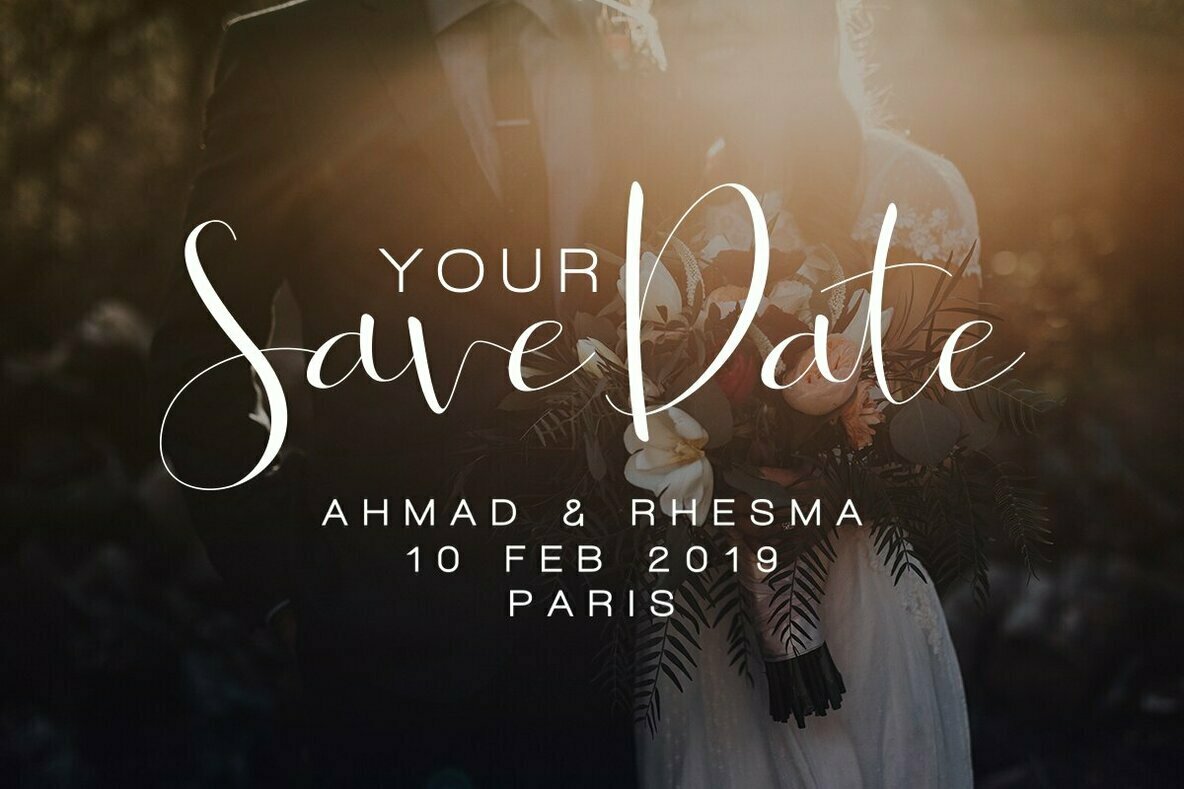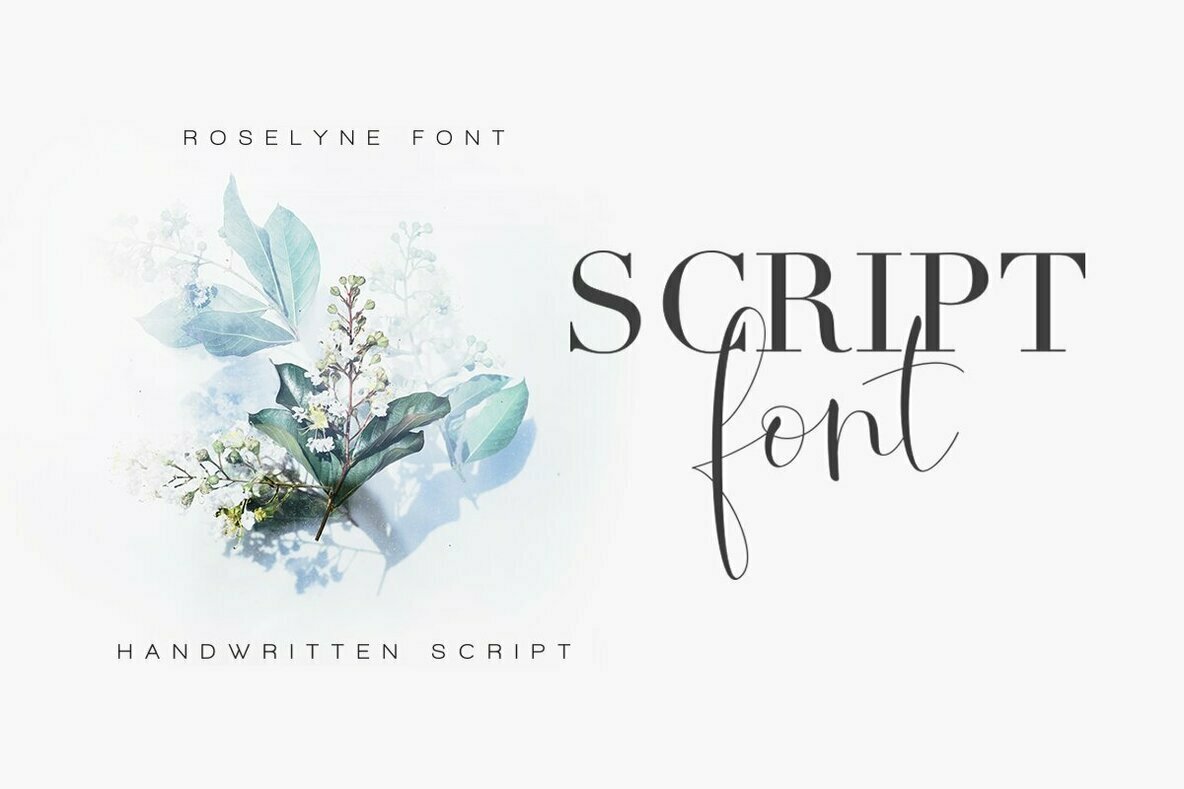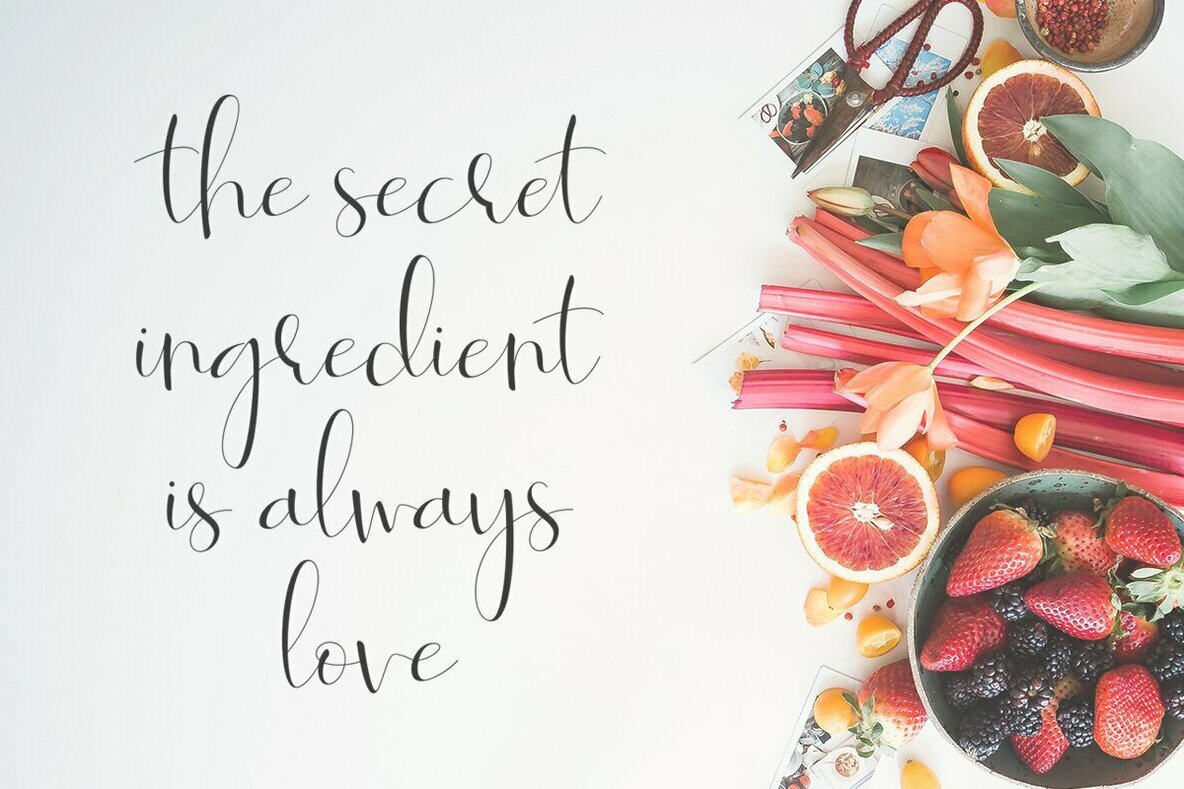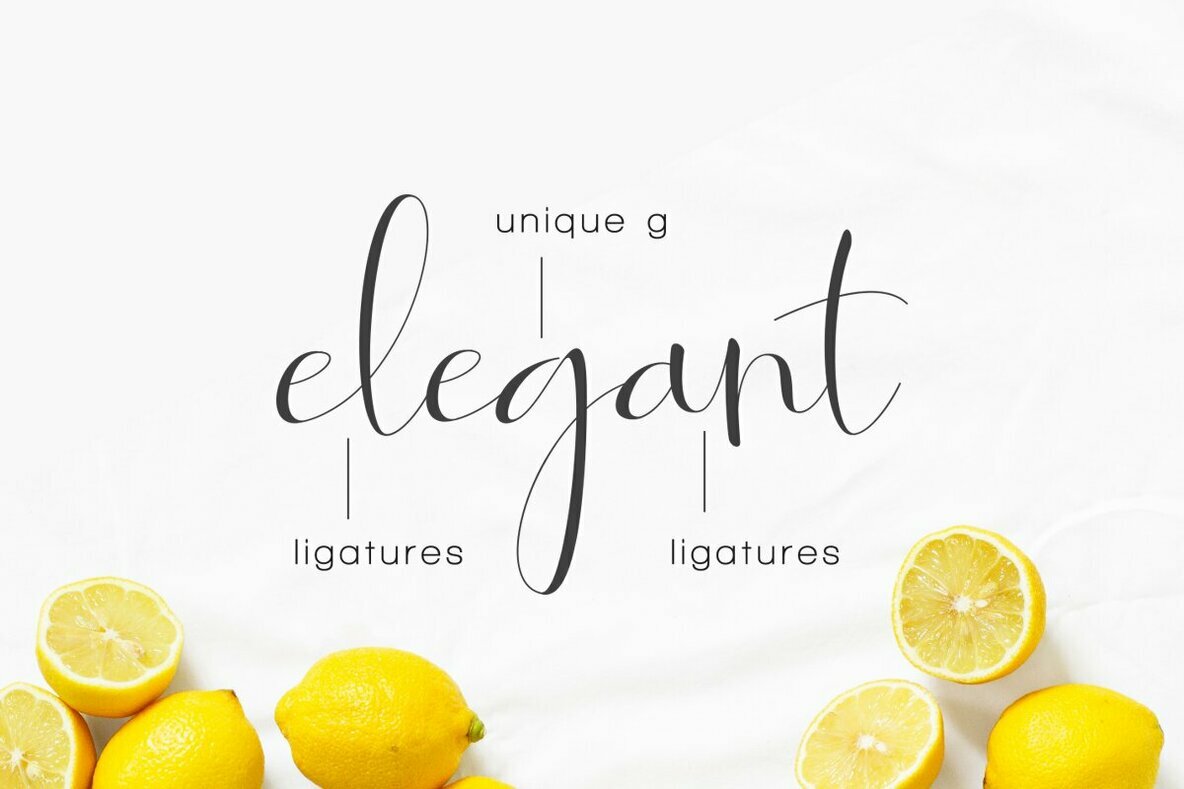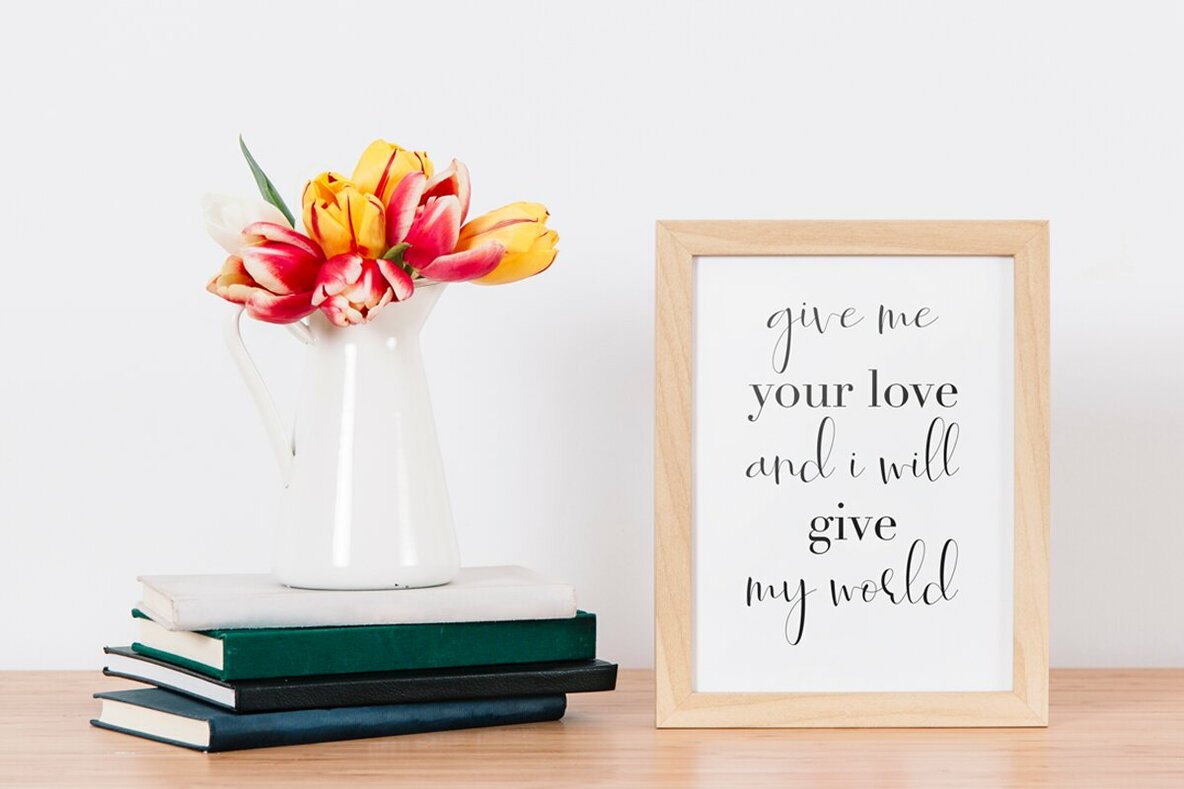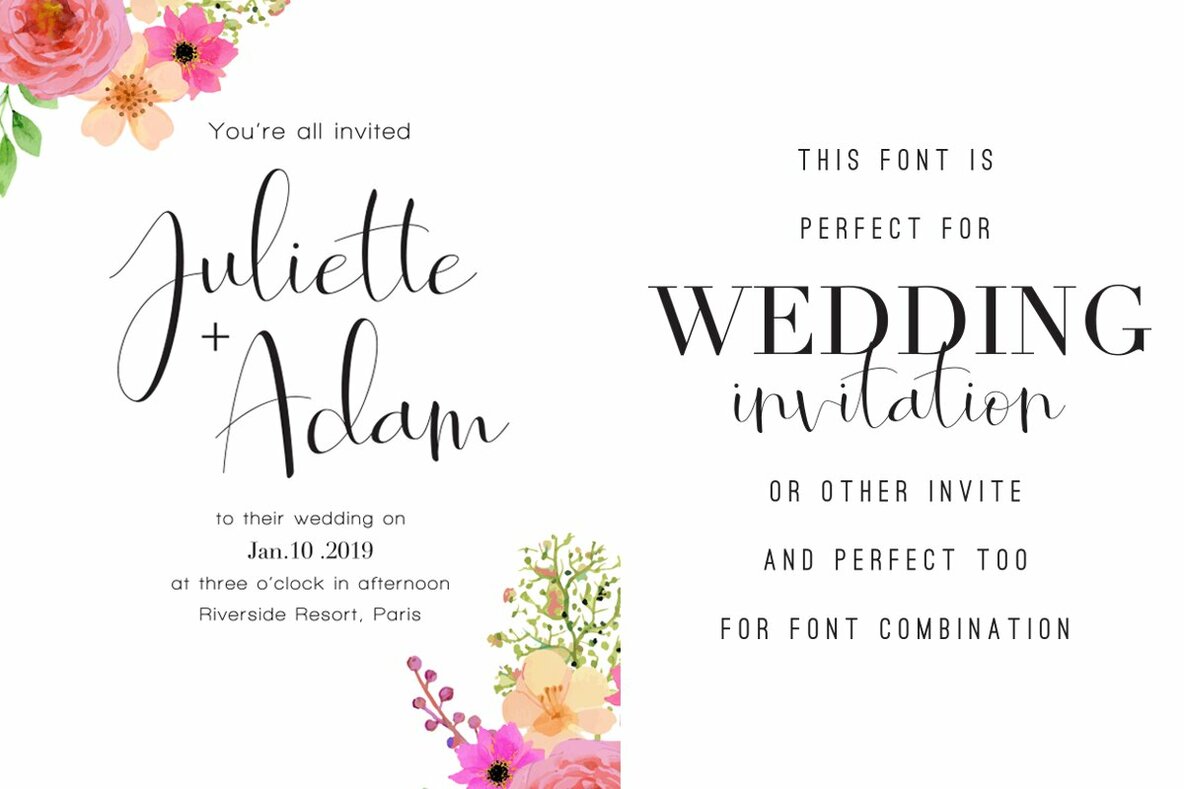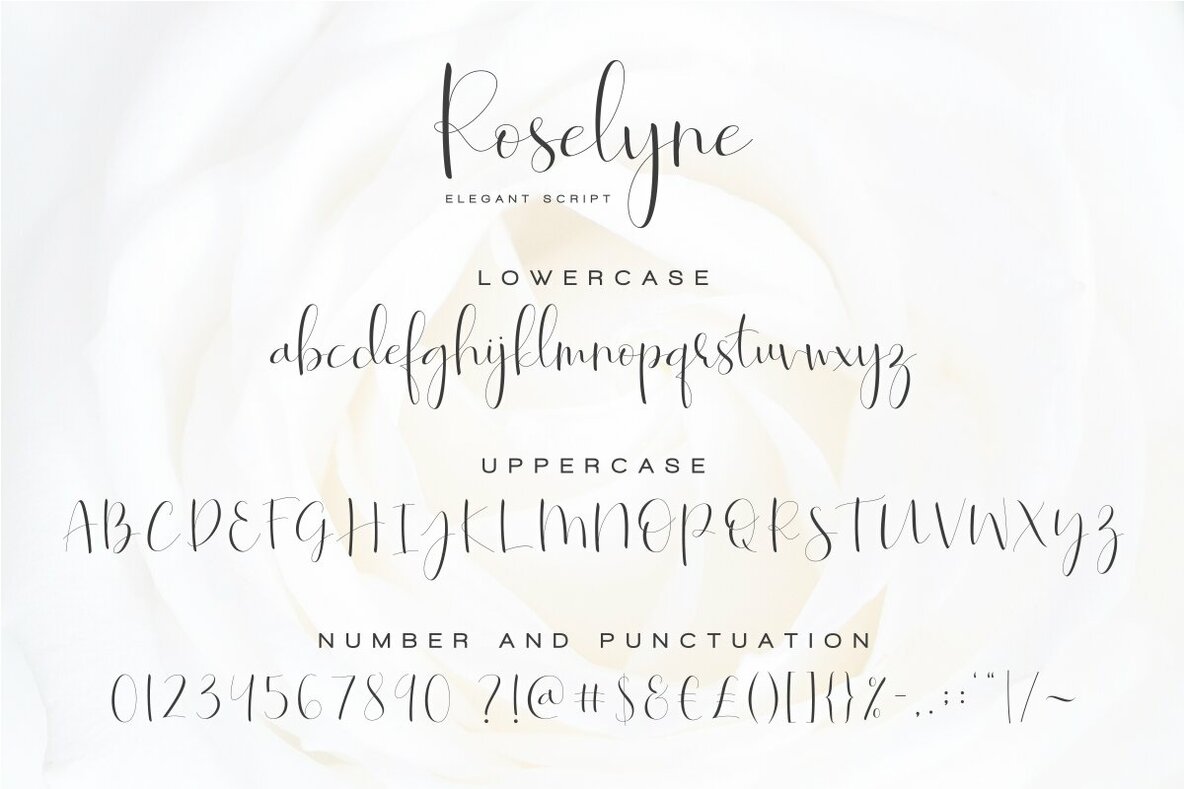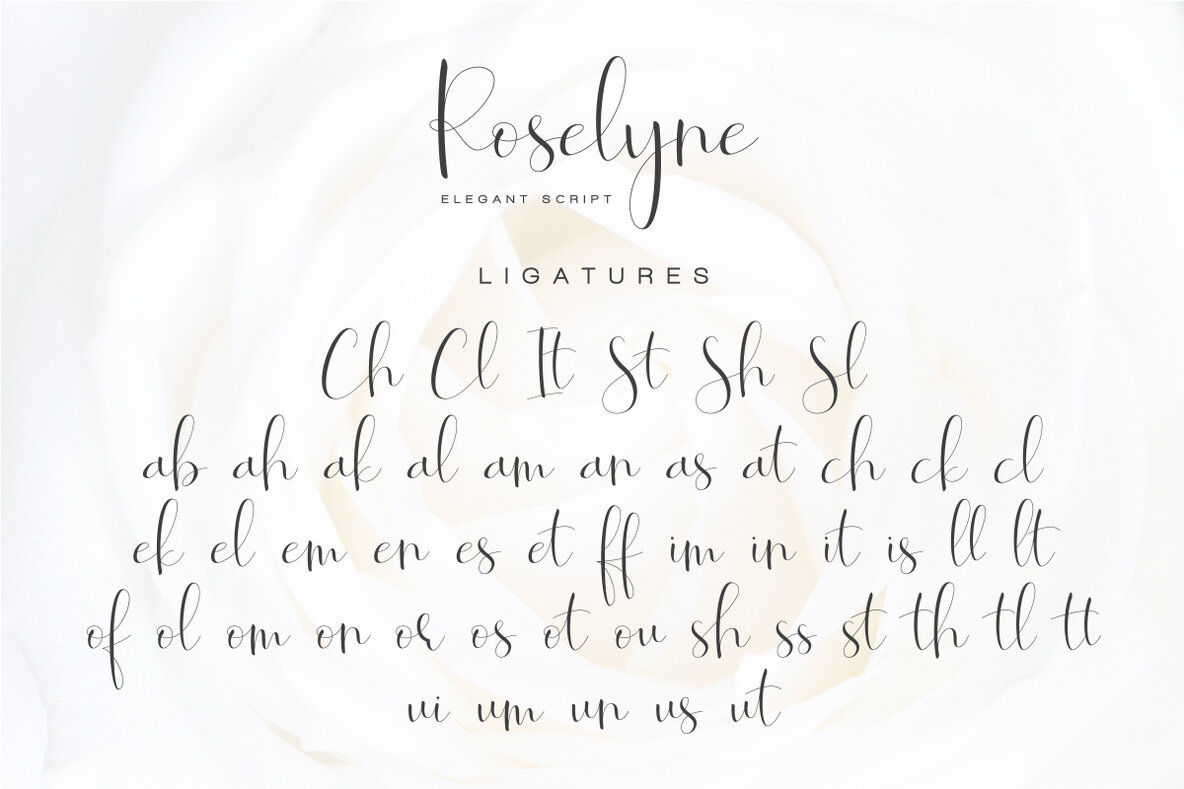
Roselyne Font
Roselyne Regular
Roselyne is a sophisticated calligraphy font that combines contemporary elegance with a handwritten aesthetic. Ideal for branding projects, wedding invitations, and greeting cards, its flowing form adds an exquisite touch to any design.Roselyne: Elegant Calligraphy for Modern Designs